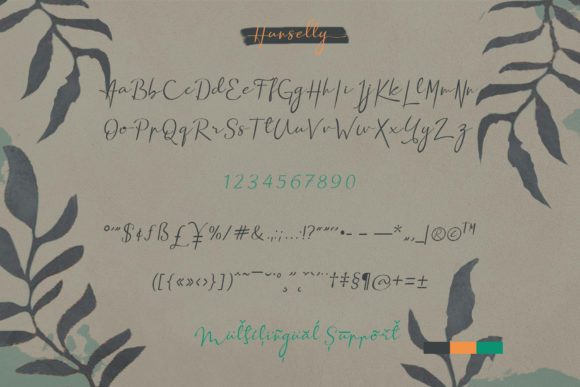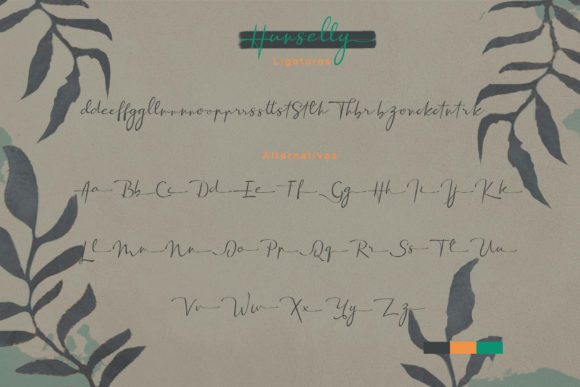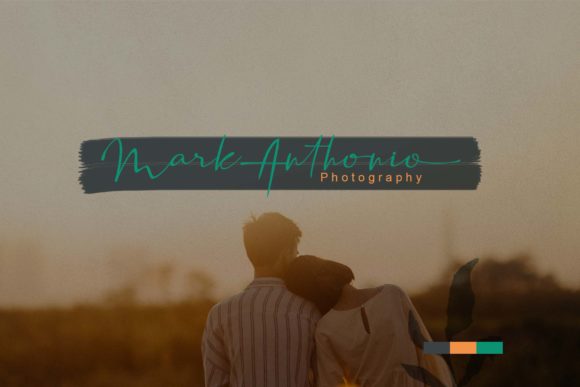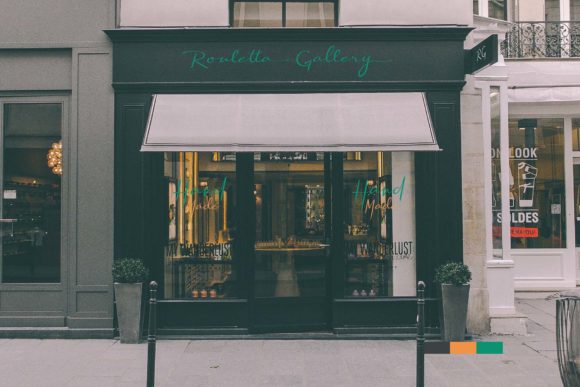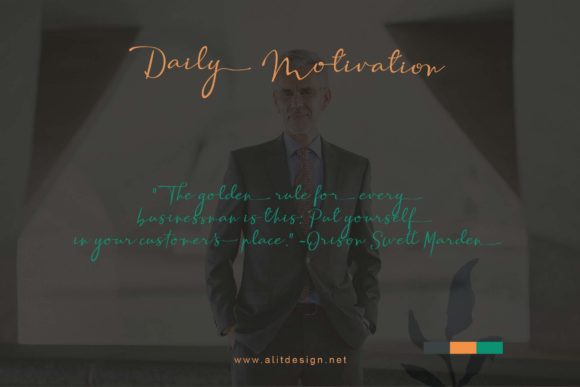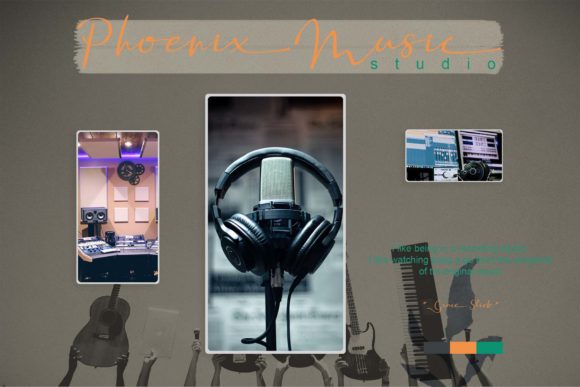
Introduction to Hunselly Font
Have you ever been working on a creative project, pouring your heart and soul into it, only to realize that it’s missing that special something? That elusive touch that sets it apart from the rest? For designers, finding the perfect font can be the game-changer that takes a project from good to great. And that’s where the Hunselly Font comes in – a stunning script font that adds a touch of elegance and sophistication to any design.
Whether you’re creating wedding invitations, thank you cards, or logos, the Hunselly Font is an invaluable resource that can elevate your designs to new heights. Its high-quality, handwritten feel is perfect for adding a personal touch to your work, and with its transparent background, it’s easy to use as a design resource in a variety of projects.
Key Features of Hunselly Font
- High-quality, unique font design suitable for creative projects, offering a distinctive aesthetic.
- Transparent background option allows for seamless integration with images and graphics, providing a clean design resource.
- Designed to be highly legible, even at small sizes, making it ideal for a wide range of applications, from headings to body text.
- High-resolution design ensures crisp and clear text, even when scaled up or used in large formats.
- Perfect for designers, artists, and writers looking for a unique and high-quality design resource for their creative projects.
Honest Review: Hunselly Font
One of the standout features of the Hunselly Font is its high quality and versatility. It’s perfect for a variety of design applications, from logos to digital art. The font also features a transparent background, making it easy to use in any design scenario.
Here are some things that work well with the Hunselly Font: ✨ Easy to read and recognize, even at small font sizes ✨ Versatile and suitable for various design applications ✨ High-quality and professional-looking ✨ Free download available
However, there are a few limitations to consider: ⚠️ Limited character set and special characters ⚠️ May not be suitable for complex or technical writing ⚠️ Some users may find the font too casual or playful
- High-quality and professional-looking
- Versatile and suitable for various design applications
- Easy to read and recognize, even at small font sizes
Tips for Getting the Most Out of Hunselly Font
Use the Hunselly Font with a transparent background to create a stunning design element. Experiment with different font sizes and colors to add depth and interest to your project.
Common Use Cases for Hunselly Font
The Hunselly Font is perfect for creative projects, such as logos, brochures, and social media graphics. Its high-quality design and transparent background make it an excellent choice for any design resource.